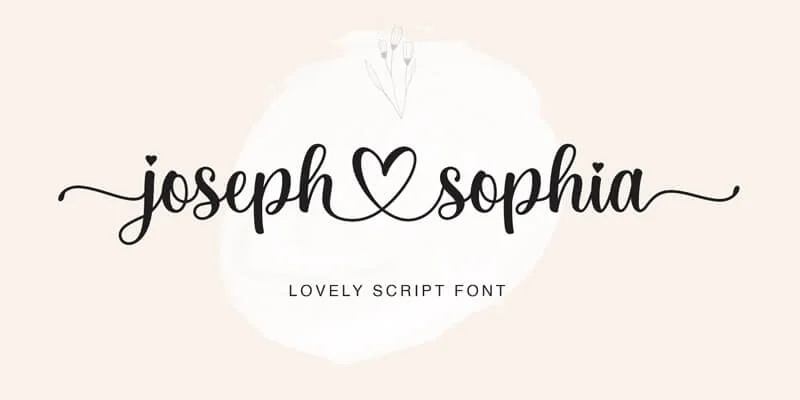
Are you looking for modern calligraphy fonts? Youโll love these best free and premium modern calligraphy fonts to elevate your designs.
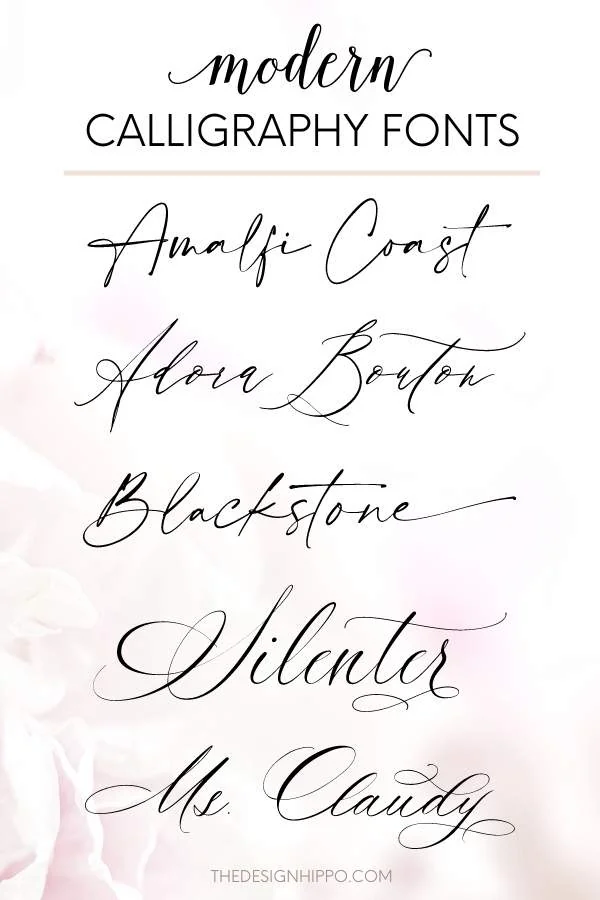
Modern calligraphy fonts are a popular style of fonts that are perfect for adding a unique handwritten touch.
The fonts combine the traditional with contemporary, making it perfect for everything from wedding invitations to business cards.
In this blog post, weโll cover the best modern calligraphy fonts and discuss ways to use them in your designs.
Best Modern Calligraphy Fonts
As a graphic designer, Iโve had the opportunity to test scores of modern calligraphy fonts. Iโve picked the best fonts based on hours of exploring the different font features so that youโll easily find one that fits your needs.
1. Amalfi Coast
Top pick for the best modern calligraphy font
Do you want to add a chic hand-lettered feel to your designs? Then the Amalfi Coast font is a fantastic option.
The handwritten font features stylish swashes that will instantly transform your designs. Best for creating signature-style logos, wedding invitations, and website designs.
2. Isabella
The best modern font with stylistic alternates
Combining the historic copperplate style with a contemporary touch is the Isabella font.
The font includes plenty of glyphs and alternate characters, such as initial and terminal letters, perfect for making unique designs.
The font tails and swashes will add a handwritten touch to your wedding, branding, and stationery projects.
3. Ms. Claudy
The best modern calligraphy font for weddings
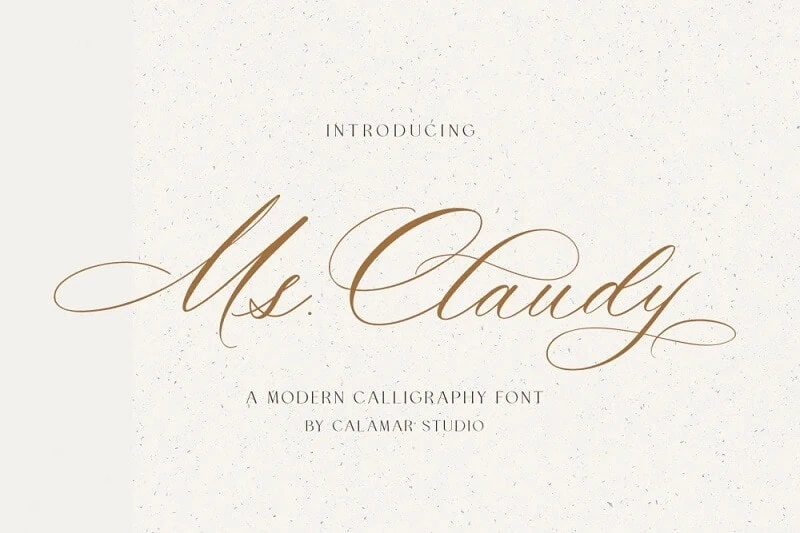
Finding the perfect font for creating wedding-themed designs can be a daunting task. But with the Ms. Claudy font, you can leave all your worries behind.
The beautiful script font will add a romantic and classy touch to your projects.
You can DIY your entire wedding, from save-the-date cards to bridal thank-you cards and wedding invitations, using Ms. Claudy.
Or, if you are running a wedding business, such as event planning, catering, or photography, the font is perfect for creating feminine logos and branding.
4. Octavia Script
The best calligraphy font with tails
Fonts with tails are perfect for adding a touch of fancy to your designs. The Octavia Script font features a dancing baseline, whimsical hand-drawn swashes, and tails.
The font will give your calligraphic designs a modern twist. You can use it for making greeting cards, invitations, and signs.
5. Adore Calligraphy
The best elegant calligraphy font
The Adore Calligraphy font is a piece of art. The font features elegant strokes and swashes thatโll add a touch of magic to your designs.
It works great for creating anything wedding and branding related. So make sure to try Adore Calligraphy for your next project.
6. Blackstone
The best modern font for logos and branding
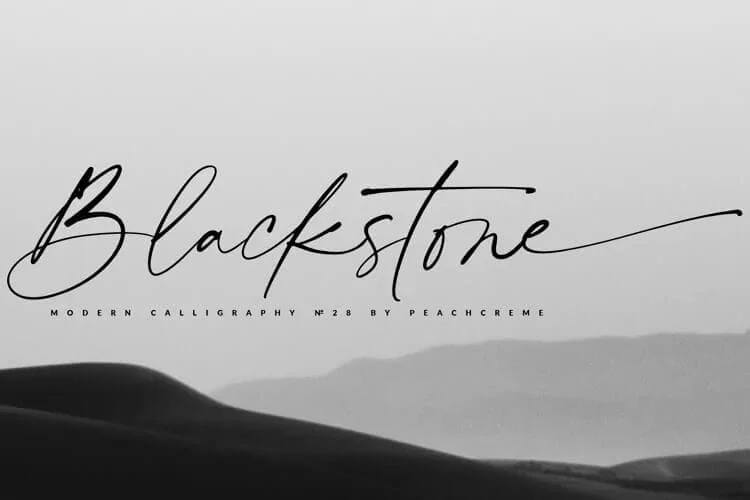
Are you looking for a stylish font to level up your brand? Look no further than the Blackstone font.
The casual chic font features flowing letters and elegant swashes. It is perfect for making trendy logos, website headings, social media posts, business cards, and packaging labels.
7. Adora Bouton
The best modern luxury font
The Adora Bouton script font features gorgeous uppercase and lowercase letters, fancy swashes, and elegant tails.
Youโll love adding a sophisticated touch to your designs with the font. It works great for everything from business branding to wedding invitation design.
8. Silenter
The best calligraphy font for fancy designs
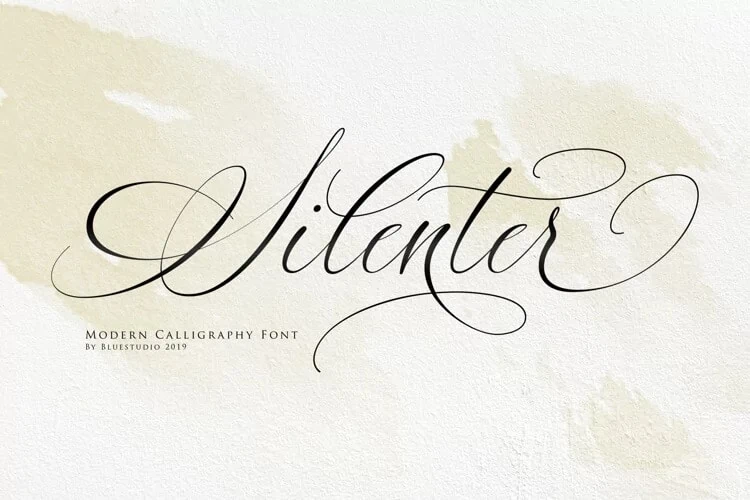
If you want to add a fancy handwritten touch to your projects, consider the Silenter font.
One of the best features of the font is the elegant ascenders and descenders.
The thin and thicker strokes are perfectly balanced to create a font thatโll help you make unique designs.
9. Hermitage
The best flowy modern calligraphy font
The Hermitage font features trendy lettering and gorgeous swashes.
The slant letters are joined by flowy strokes, evoking a feeling of casual chic. You can use it for creating typographic quotes, monograms, and branding assets.
10. Endestry Modern
The best bouncy calligraphy font
If you are looking for a brush script font thatโs more modern than traditional, then the Endestry font is a great option.
The font is perfect for adding a quirky touch to your designs, whether for weddings, social media, or book cover designs.
11. Astoria Modern
The best modern script font
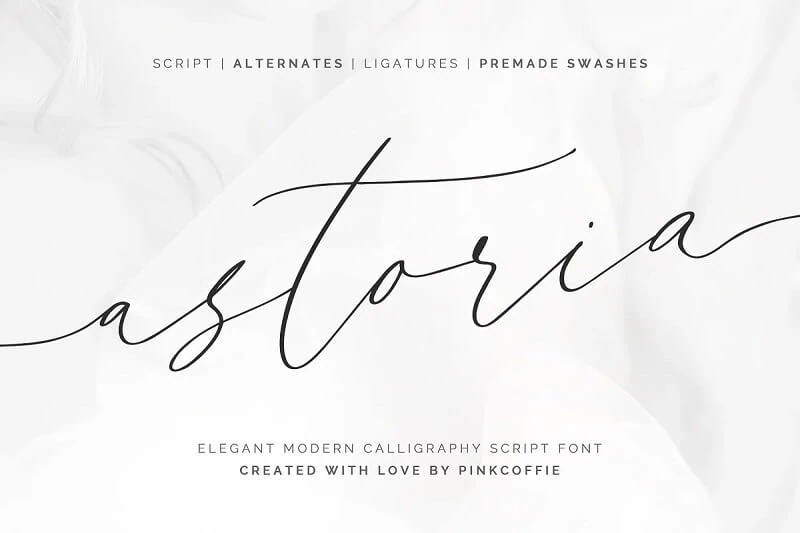
Inspired by inky hand-lettering, the Astoria font features delicate letters, beautiful swashes, alternates, and ligatures.
Download the Astoria Modern font to create minimal yet stylish wedding and branding designs.
Best Free Modern Calligraphy Fonts
Adding a modern handwritten touch to your designs is easy with the free fonts below.
12. Arnitta Callina
The best free font for commercial use
- Greeting and Thank You card designs
How to choose the best modern calligraphy font for you?
To pick the best calligraphy font, you must first understand the aesthetic you want to convey through your designs.
Explore the different types of modern fonts depending on the look you want to achieve. Here are a few tips:
- Fonts with swashes are perfect for wedding projects
- Flowy fonts work great for feminine branding designs
- Choose a thin font if you want to achieve a fancy and luxurious look
- To make fun modern designs, pick a font with a bouncy baseline